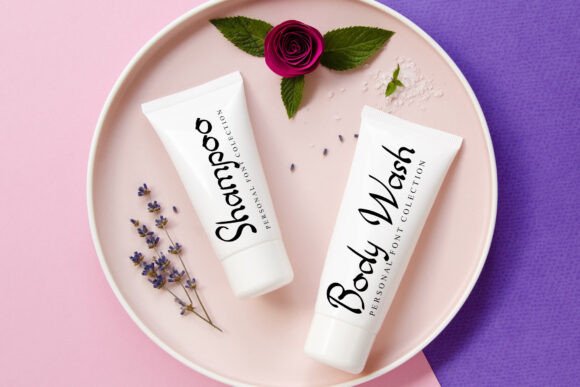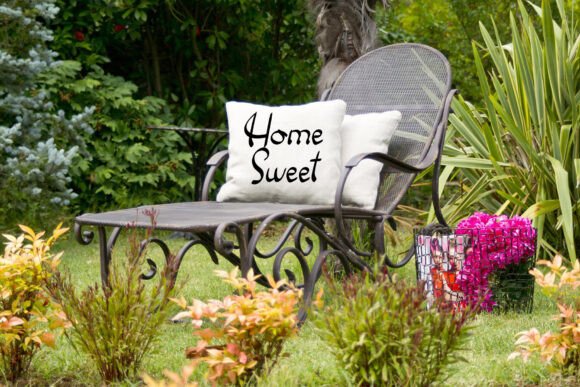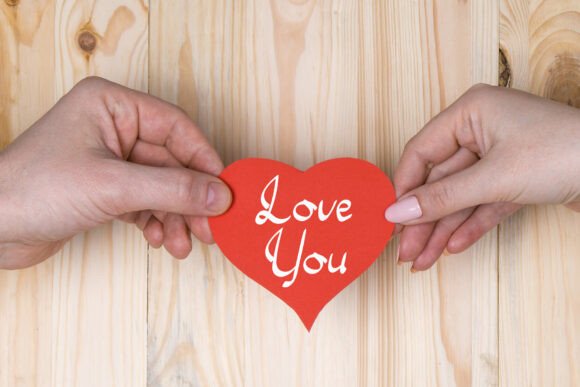
Introduction to Market Research Font
As a designer, there’s nothing quite like the thrill of bringing a creative project to life. The rush of excitement as you envision your idea taking shape, the satisfaction of seeing it come together, and the joy of sharing it with others – it’s a feeling that never gets old. But, have you ever struggled to find the perfect font to match your vision? One that’s not only visually stunning but also professionally polished?
Enter the Market Research Font, a unique and elegant design resource that’s specifically crafted to elevate your projects to the next level. With its high-quality, transparent background, and carefully curated glyphs, this font is the perfect addition to any creative endeavor. Whether you’re working on a school assignment, a business project, or a personal passion, the Market Research Font is the perfect design companion to help you bring your ideas to life.
Key Features of Market Research Font
- High-quality design: This font is specifically designed for market research purposes, making it ideal for creating visually appealing and informative materials.
- Transparent background: The font’s transparent background allows for seamless integration with other design elements, making it easy to use in presentations, reports, and other marketing materials.
- High-resolution design: The font is designed at 300 DPI, ensuring crisp and clear text even when printed at high resolutions.
- Perfect for reports and presentations: The Market Research Font is designed to be easy to read and understand, making it ideal for use in reports, presentations, and other marketing materials.
Honest Review: Market Research Font
I recently stumbled upon the Market Research Font and was excited to give it a try. As a designer, I’m always on the lookout for high-quality design resources to elevate my creative projects. The Market Research Font did not disappoint.
- ✨ High quality and professional appearance: The font is sleek and modern, perfect for any market research or business-related project.
- ✨ Transparent background: This feature is a must-have for designers who want to create visually appealing graphics and presentations.
However, I did encounter a few limitations.
- ⚠️ Limited character set: The font only includes a basic set of characters, which may not be sufficient for more complex design projects.
- ⚠️ No bold or italic variations: While the font is stylish, it would be great to have more options for varying font weights and styles.
Overall, I’m impressed with the Market Research Font. While it has its limitations, it’s a great design resource for designers who want to create professional-looking graphics and presentations without breaking the bank. I’d definitely recommend it for any creative project that requires a high-quality, modern font.
Market Research Font: A Comprehensive Guide
The Market Research Font is a high-quality, free download design resource ideal for various creative projects. With a transparent background, this font is versatile and easy to use in multiple applications.
Tips for Getting the Most Out of Market Research Font
To maximize the use of the Market Research Font, consider the following tips:
- Experiment with different font sizes and styles to create a visually appealing design.
- Combine the Market Research Font with other design elements, such as images and icons, to create a cohesive look.
The Market Research Font is ideal for:
- Research reports and presentations
- Market analysis and strategy documents
- Business proposals and pitches
Q: Can I customize the Market Research Font to fit my brand’s specific design requirements?